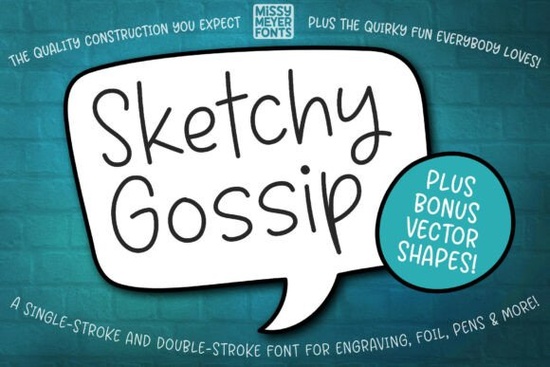
If you're looking for a playful and versatile font for your creative projects, the Sketchy Gossip Font might just be what you need. This single-line handwriting font is based on the popular Juicy Gossip outline typeface and brings a casual, friendly vibe to any design.
What Makes Sketchy Gossip Font Unique?
Sketchy Gossip is designed with rounded, casual strokes, making it perfect for a variety of creative applications. Whether you're working on greeting cards, personalized gifts, or engraving on jewelry and cutting boards, this font adds a touch of whimsy and charm. It's not a traditional print or word-processing font; instead, it's optimized for use with tools like sketch pens, foil quills, engraving tools, infusible ink pens, and Glowforge scoring. This makes it ideal for single-line and double-line drawing applications.
Font Features and Formats
- Single-Stroke and Double-Stroke Versions: The font comes in both single-stroke and double-stroke versions, ensuring compatibility with various design and cutting programs.
- Bonus Content: Included with the font is an SVG set of vector bonus objects from the original Juicy Gossip typeface. These hand-drawn banners, ovals, speech bubbles, and fun decorative shapes can enhance your designs and add a unique flair.
How Can You Use Sketchy Gossip Font?
The versatility of Sketchy Gossip Font makes it suitable for a wide range of projects. Here are some ideas:
- Greeting Cards: Add a personal touch to your handmade cards with this playful font.
- Personalized Gifts: Engrave names or messages on jewelry, cutting boards, and other items for a unique gift.
- Engraving Projects: Use the font with engraving tools to create intricate and detailed designs.
- Custom T-Shirts and Apparel: Combine the font with the bonus SVG objects to create eye-catching designs for clothing.
- Home Decor: Incorporate the font into wall art, mugs, and other home decor items for a custom look.
- Experiment with Different Tools: Try using the font with various tools like sketch pens, foil quills, and engraving tools to see which works best for your project.
- Combine with Bonus SVG Objects: Use the included SVG set to add extra elements and make your designs more dynamic.
Comparing Sketchy Gossip Font with Other Creative Fonts
Tips for Using Sketchy Gossip Font Effectively
To get the most out of Sketchy Gossip Font, here are a few tips:
By following these tips, you can create beautiful and unique designs with the Sketchy Gossip Font. Whether you’re a designer, crafter, or small business owner, this font is a valuable addition to your creative toolkit.